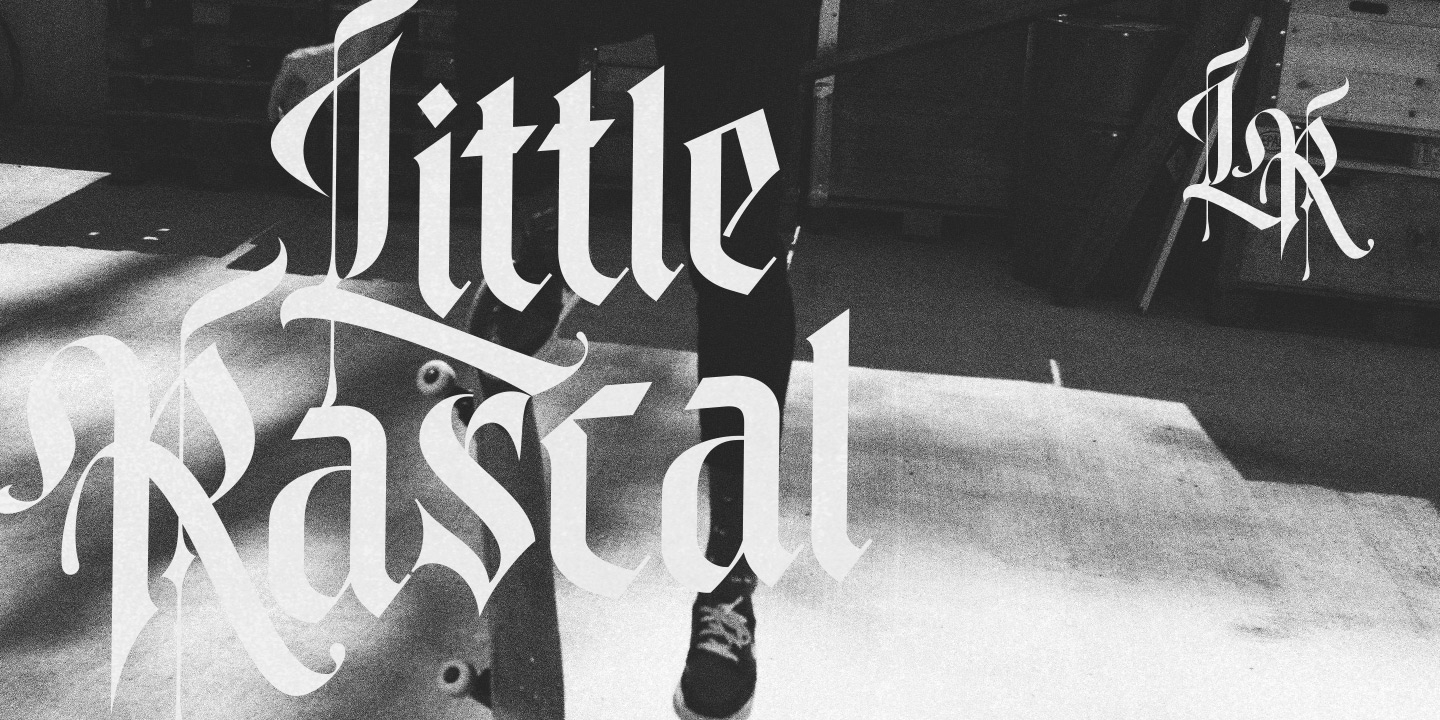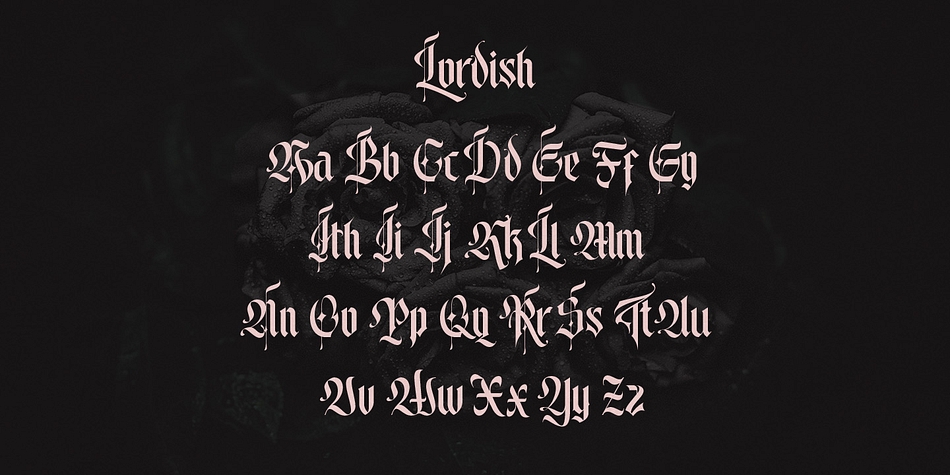
Lordish
Lordish is a blackletter font family. This typeface has three styles and was published by Creative Media Lab.
Introducing Lordish Blackletter font, a unique blackletter for your design. Includes uppercase, lowercase and punctuations and international characters. Good for display font, tattoo font or other styles. Bonus ornaments in the download file.